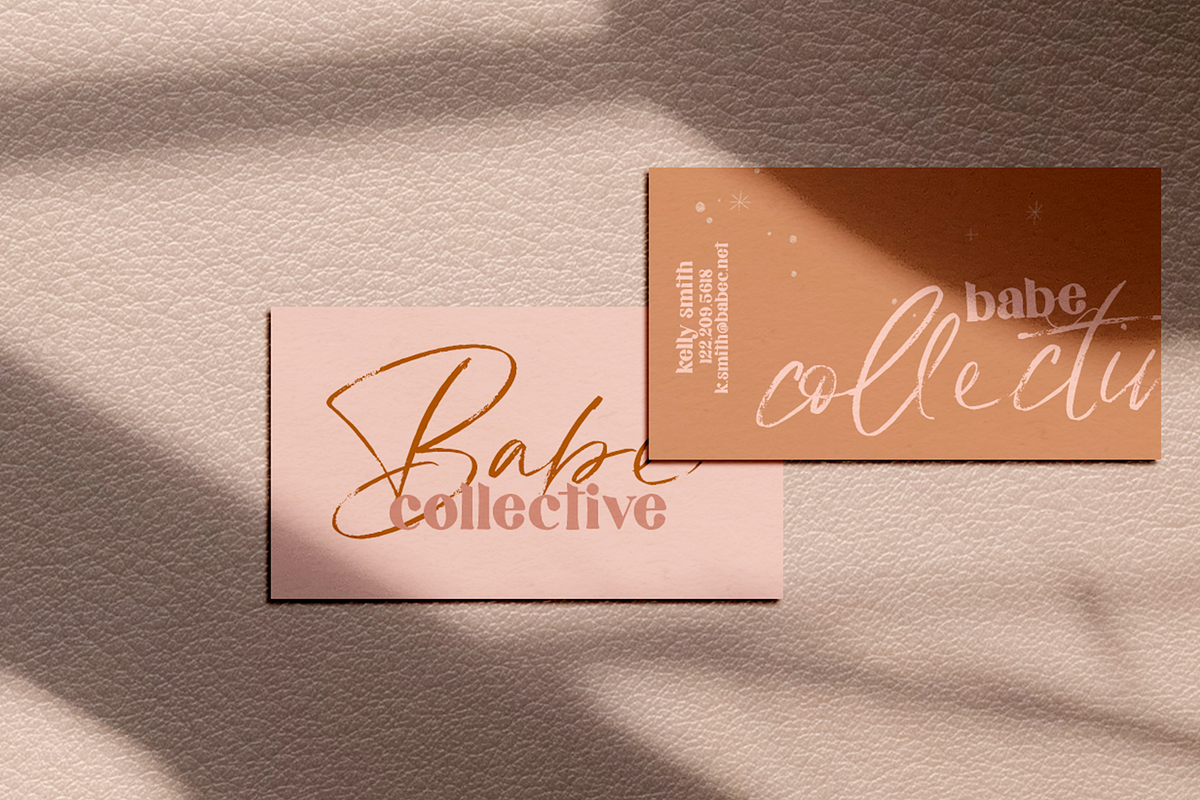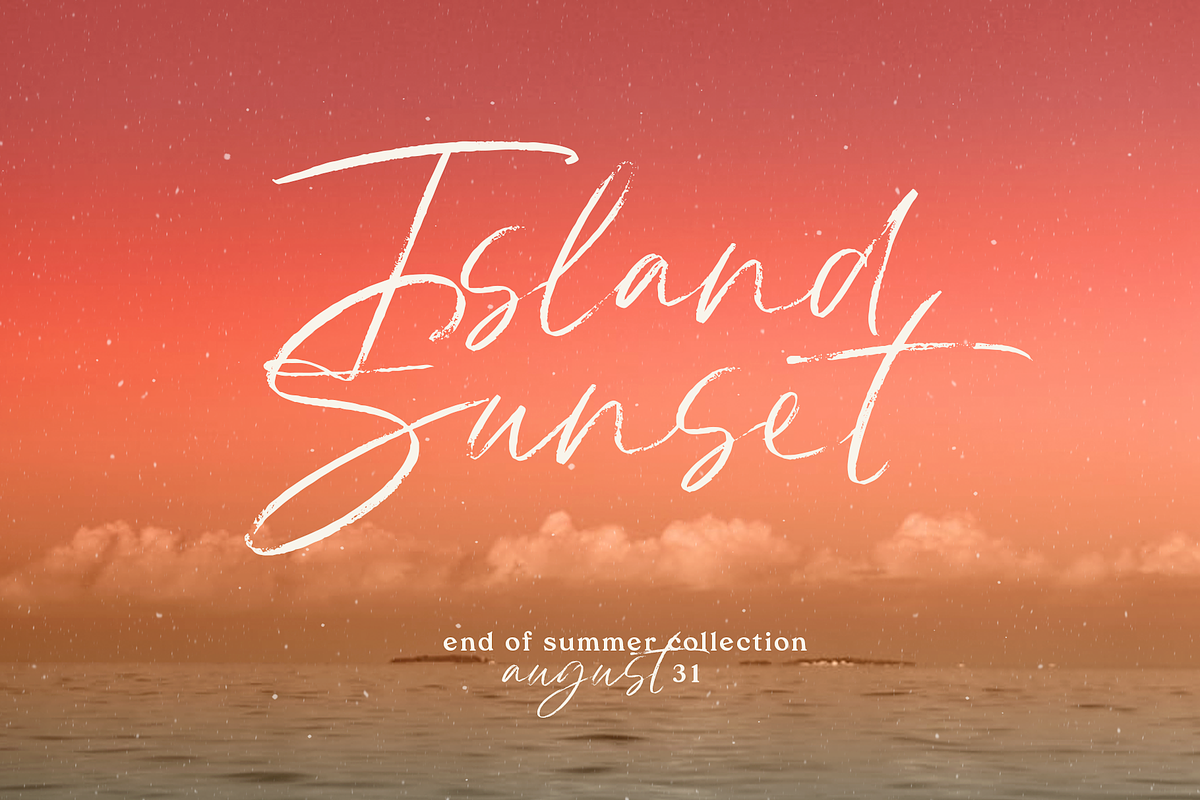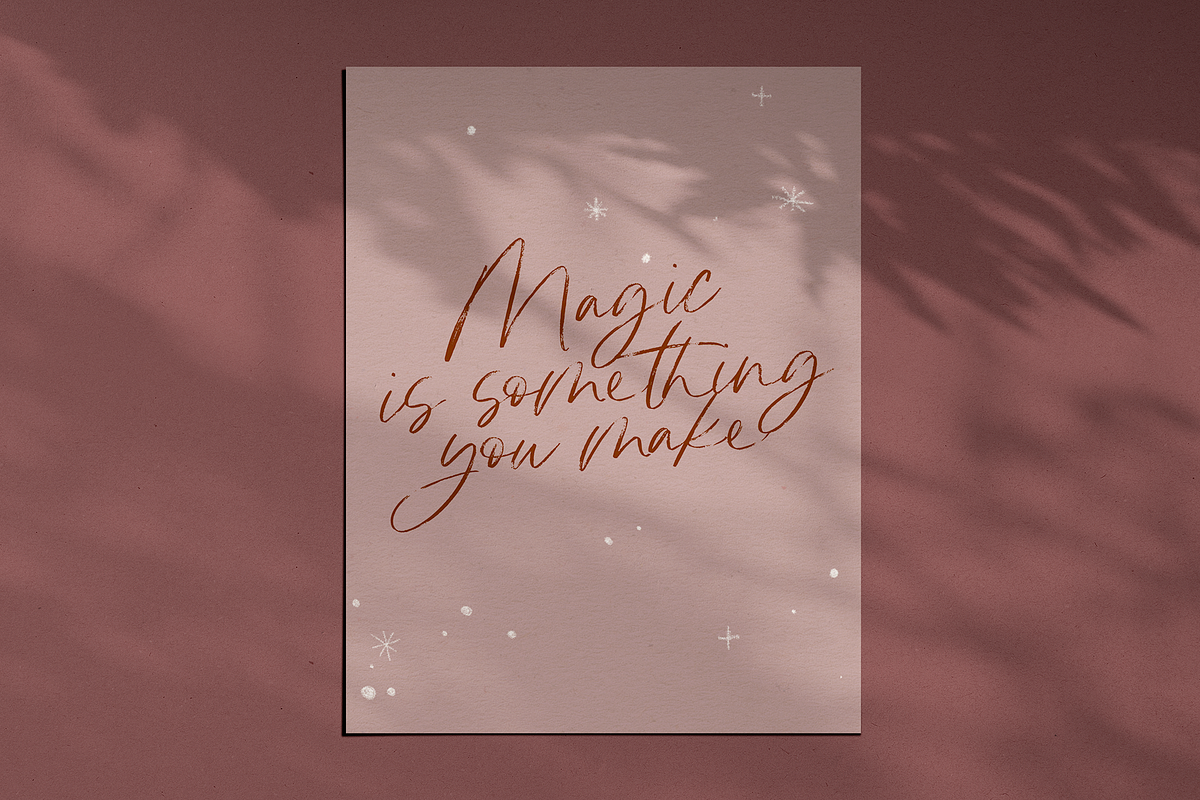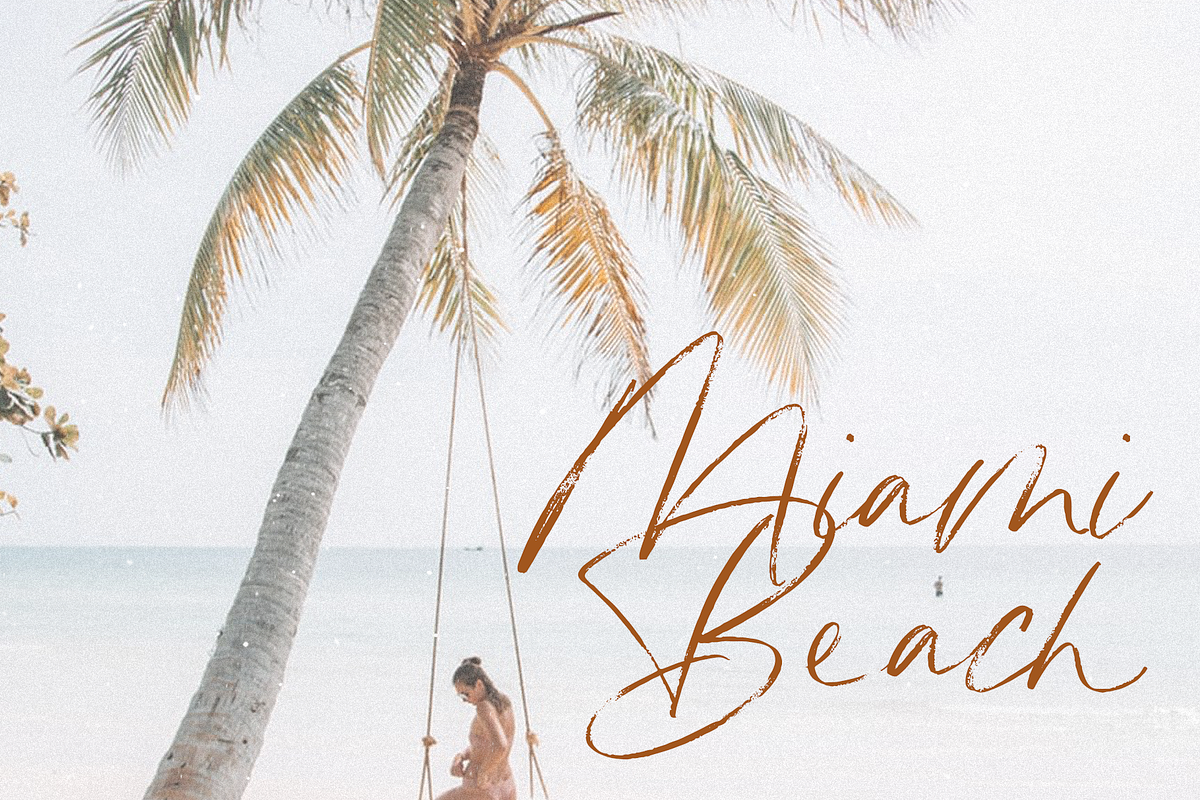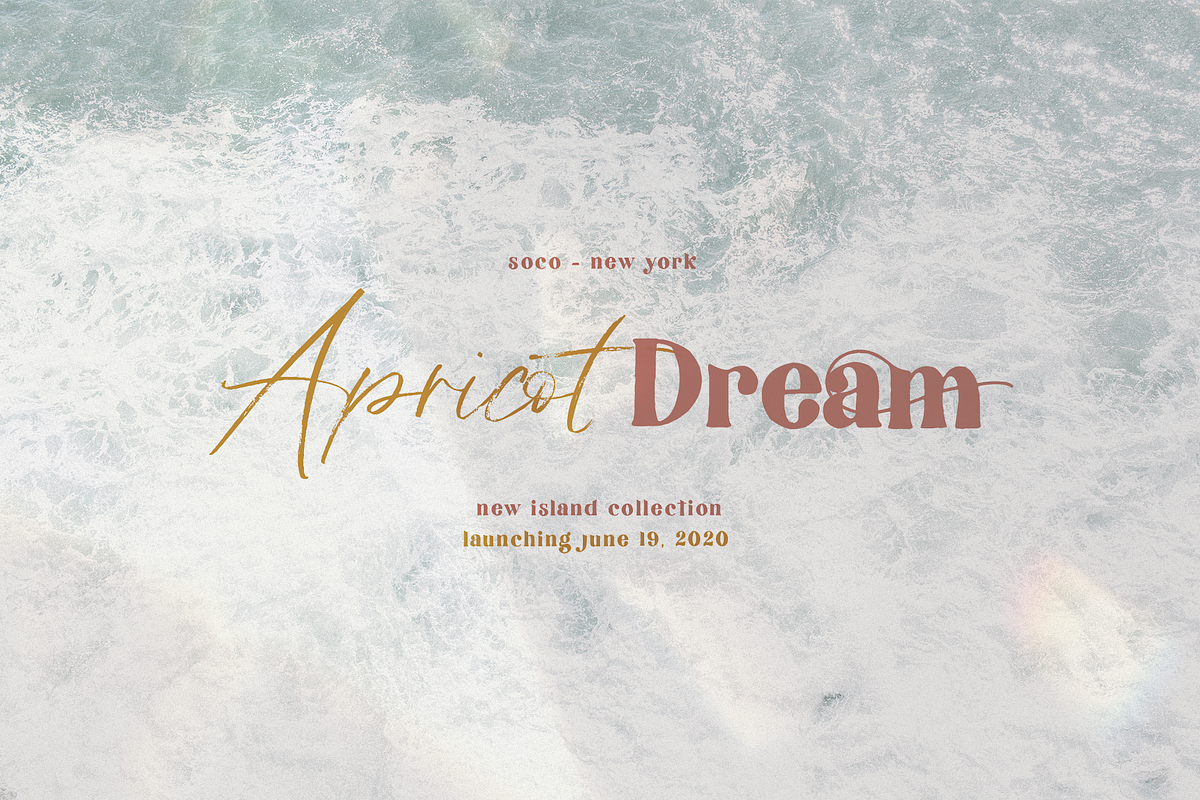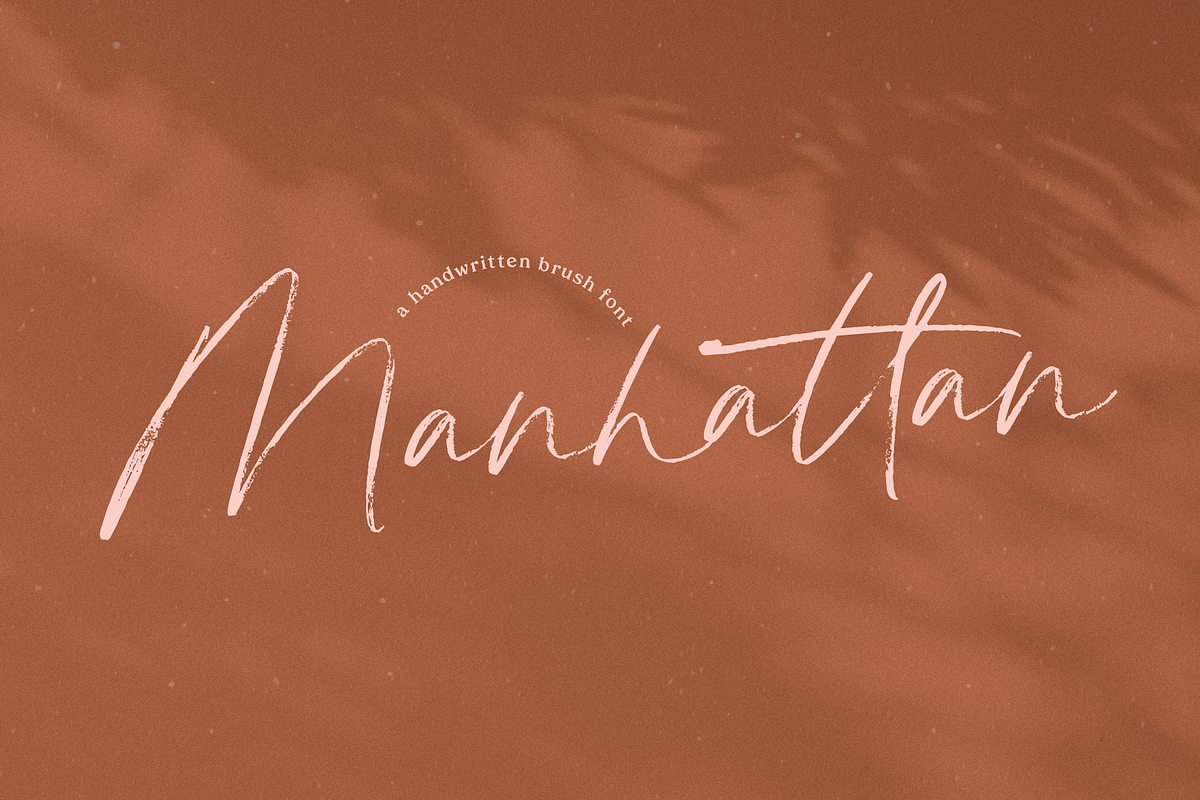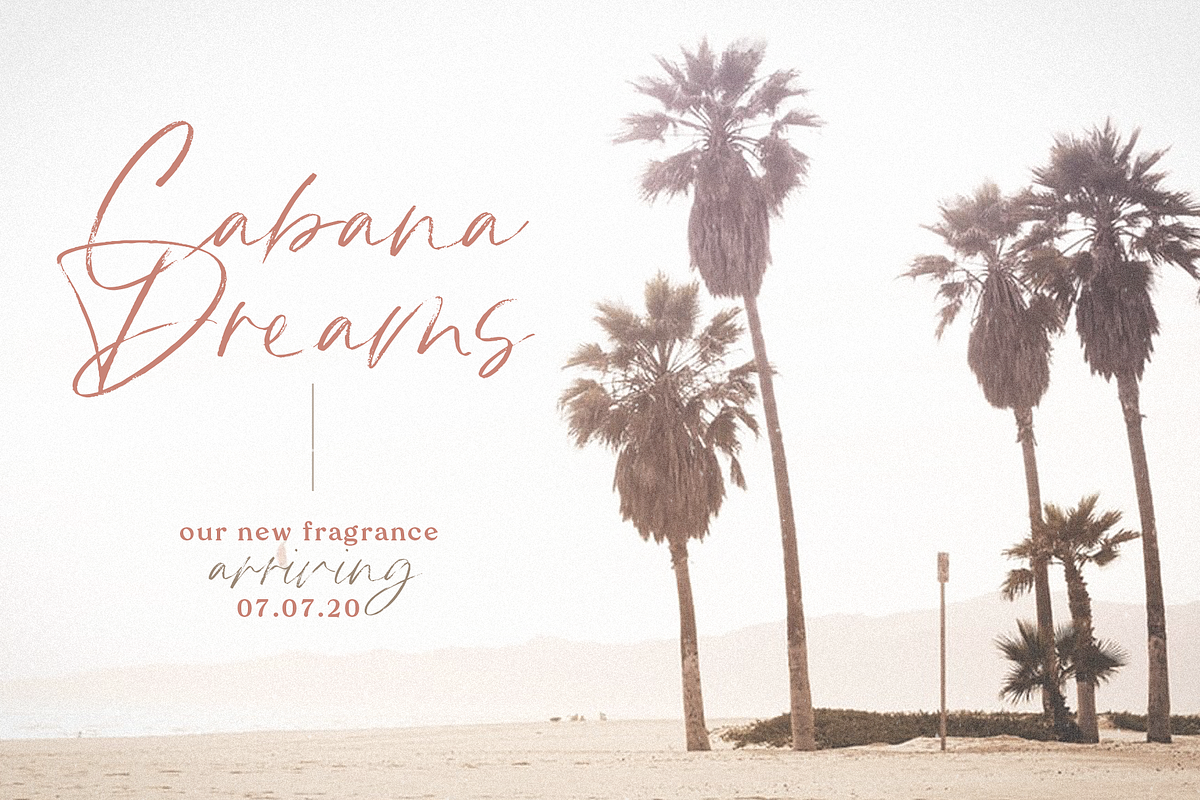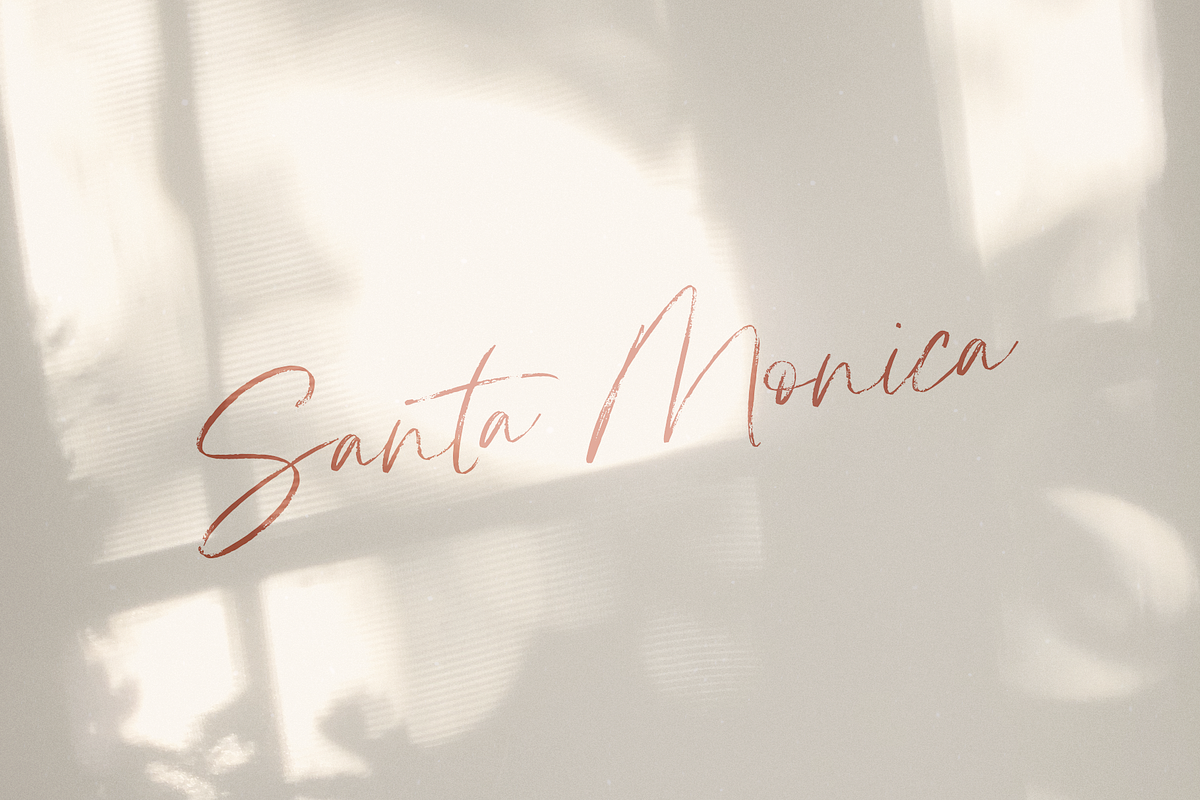
Manhattan | Brush Script Font
Manhattan is a carefree, handwritten script font. This font has a light look with heavy brush texture.
This font is perfect for modern projects, headings, blogs, logos, brandings, invitations, and more!